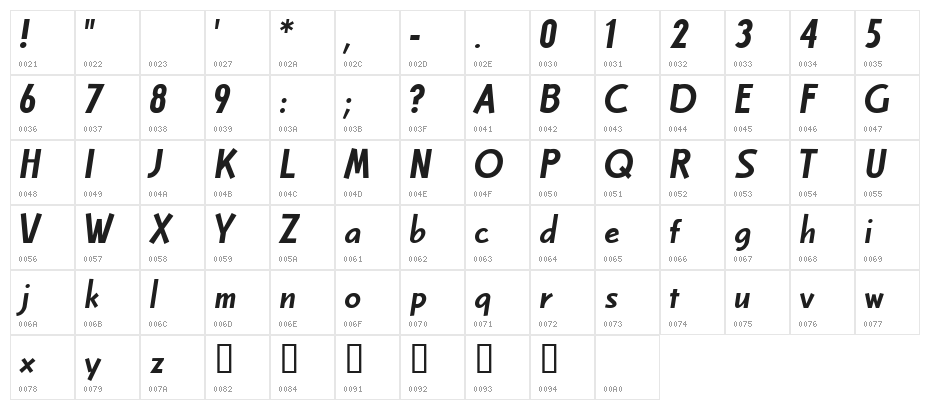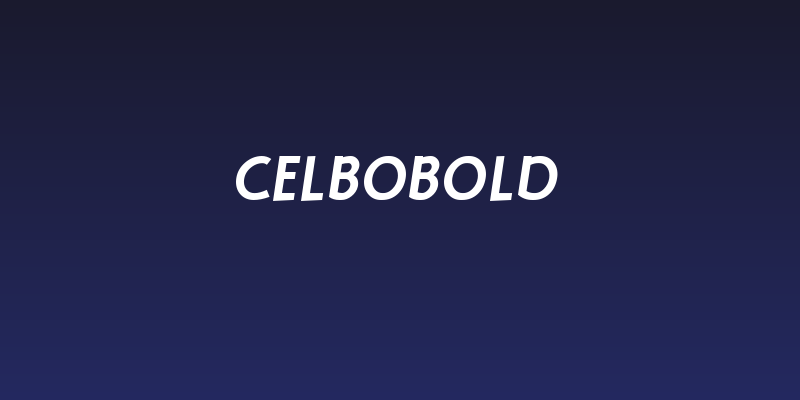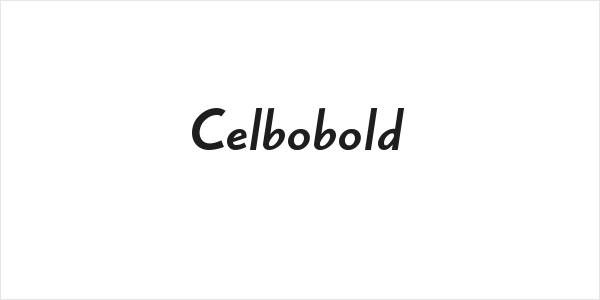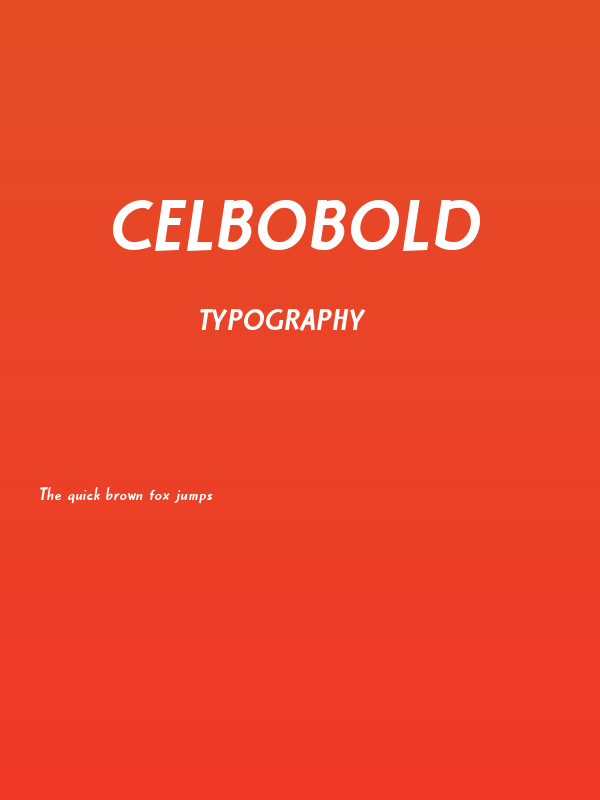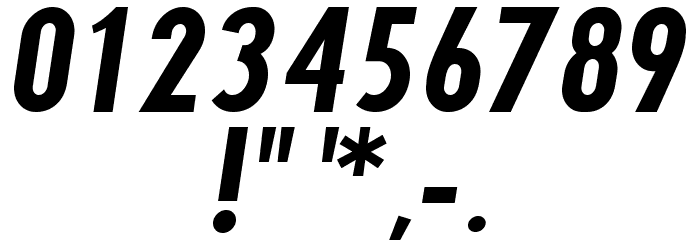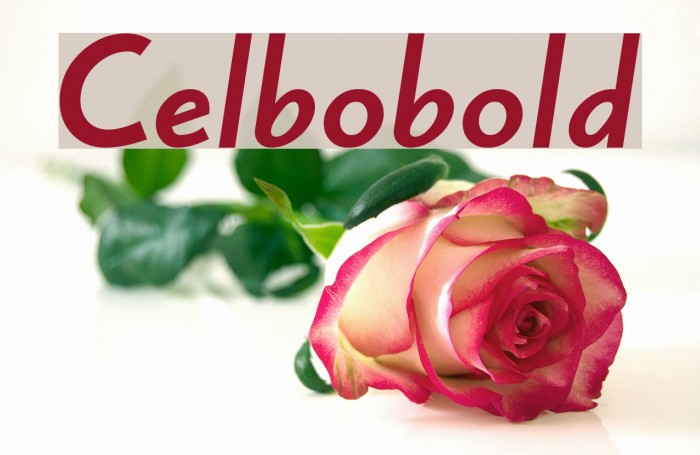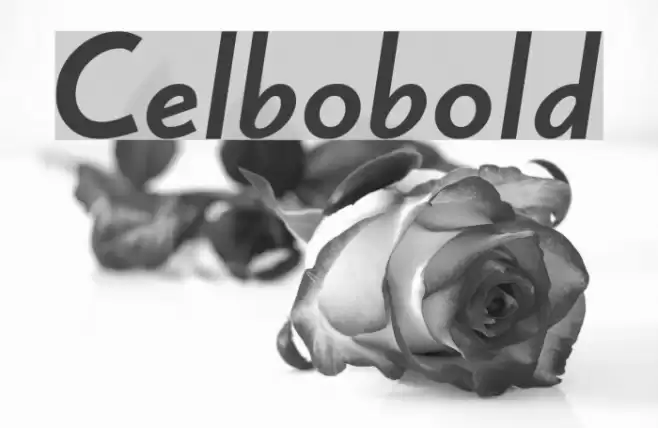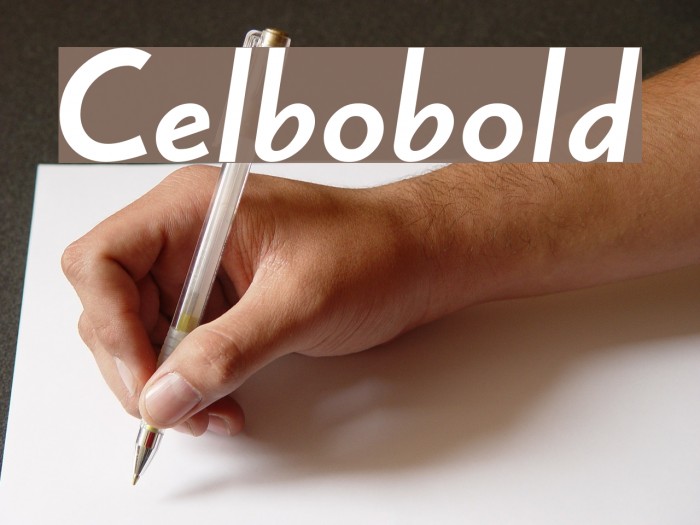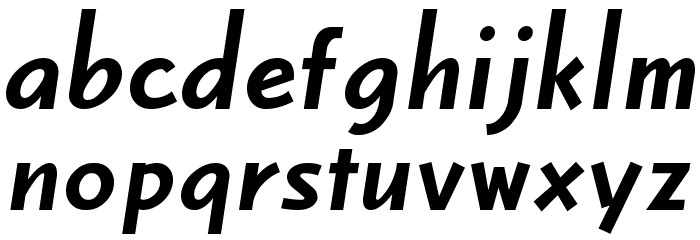
Celbobold Font
✎ Thick
| Anwendungsfall | Headlines, Logos, Advertising |
| Vorgeschlagene Projekte | Ideal for branding, advertising, headlines, and digital media projects that require a bold and modern touch. |